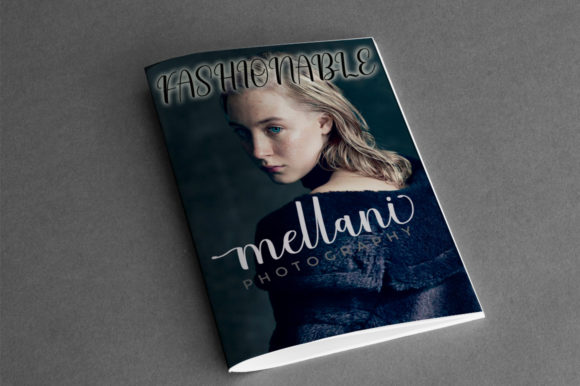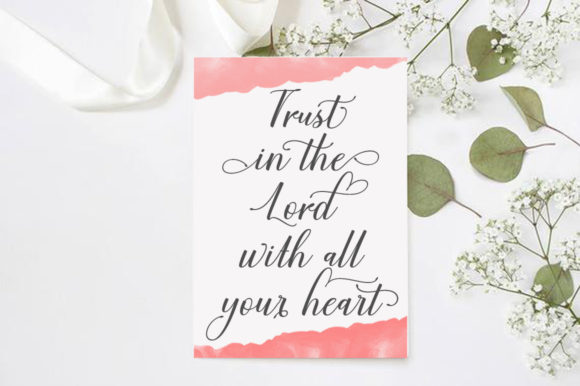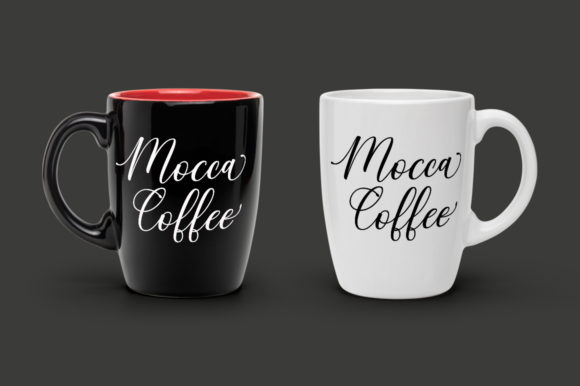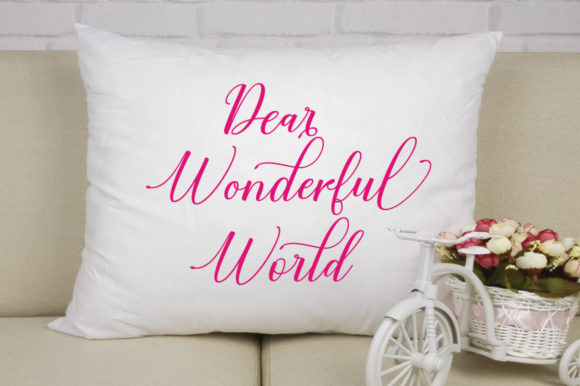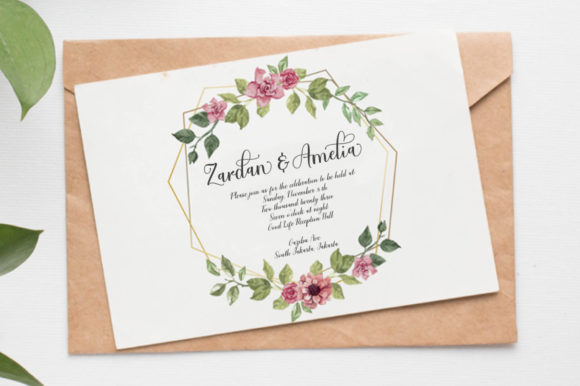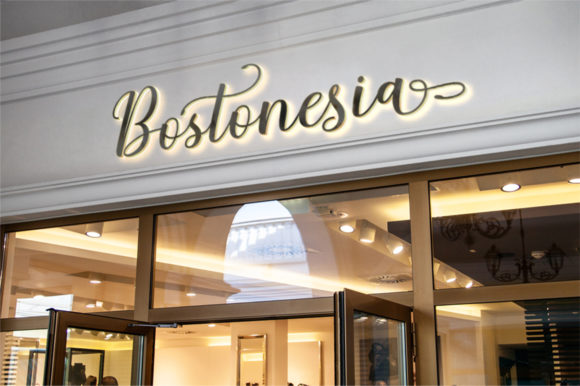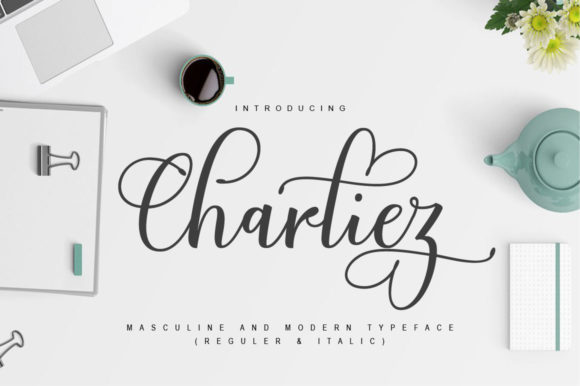
Introducing Charliez Font: A Timeless Elegance for Your Designs
Are you looking for a font that exudes elegance, sophistication, and playfulness all at once? Look no further than Charliez Font, a beautiful handwritten font that is sure to inspire your next design project. With its amazing swashes and timeless charm, Charliez Font is the perfect addition to any designer’s toolkit.
What is Charliez Font?
Charliez Font is a modern handwritten font that boasts a unique blend of playfulness and sophistication. Its elegant strokes and beautiful swashes make it perfect for a wide range of design applications, from wedding invitations and branding materials to social media graphics and more.
Key Features of Charliez Font
- Playful and Lovely Handwritten Style: Charliez Font features a beautiful, handwritten style that is both playful and lovely. Its elegant strokes and curves make it perfect for designs that require a personal touch.
- Amazing Swashes: One of the standout features of Charliez Font is its amazing swashes. These beautiful flourishes add a touch of elegance and sophistication to any design, making it perfect for high-end branding and marketing materials.
- Timeless Elegance: Despite being a modern font, Charliez Font exudes a timeless elegance that is sure to remain relevant for years to come. Its classic style and beautiful lettering make it perfect for designs that require a sense of tradition and heritage.
Uses of Charliez Font
Charliez Font is a versatile font that can be used for a wide range of design applications, including:
- Wedding Invitations: Charliez Font is perfect for wedding invitations, with its elegant strokes and beautiful swashes adding a touch of romance and sophistication to any design.
- Branding and Marketing Materials: The font’s timeless elegance and playful style make it perfect for branding and marketing materials, such as business cards, brochures, and social media graphics.
- Stationery and Packaging: Charliez Font is also great for stationery and packaging design, adding a personal touch to letters, cards, and product packaging.
Why Choose Charliez Font?
So why choose Charliez Font for your next design project? Here are just a few reasons:
- Unique and Eye-Catching: Charliez Font is a unique and eye-catching font that is sure to stand out in any design.
- High-Quality Design: The font is designed to the highest standards, with beautiful lettering and elegant strokes.
Tips for Using Charliez Font
Here are a few tips for using Charliez Font in your designs:
- Use it Sparingly: Charliez Font is a beautiful font, but it can be overwhelming if used too much. Use it sparingly to add a touch of elegance to your design.
- Experiment with Swashes: The swashes in Charliez Font are one of its standout features. Experiment with different swashes to add a unique touch to your design.
- Pair it with Other Fonts: Charliez Font can be paired with other fonts to create a unique and eye-catching design. Try pairing it with a bold sans-serif font for a striking contrast.
In conclusion, Charliez Font is a beautiful and versatile font that is sure to inspire your next design project. With its playful and lovely handwritten style, amazing swashes, and timeless elegance, it’s the perfect addition to any designer’s toolkit. Whether you’re designing wedding invitations, branding materials, or social media graphics, Charliez Font is sure to add a touch of sophistication and elegance to your design.